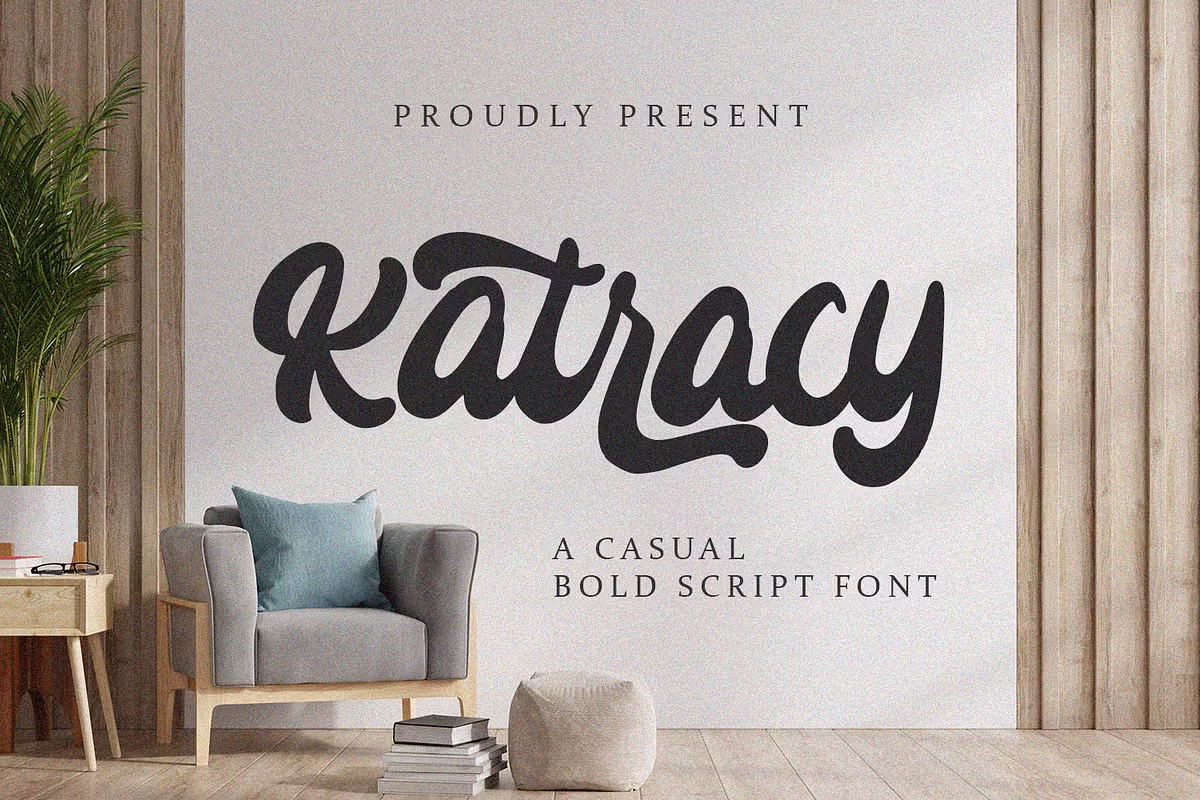
Katracy - Bold Script Font Free Download
Katracy Font Free Download is a bold script typeface that blends confident strokes with elegant curves, making it perfect for standout branding, logos, headlines, apparel, and modern signage. With its expressive letterforms and hand-lettered charm, Katracy delivers a powerful yet stylish presence across both digital and print projects.
The font features smooth connections, stylish swashes, and a full character set including uppercase, lowercase, numerals, and punctuation—ideal for creating attention-grabbing text with a handcrafted touch.
Whether you're designing a signature logo or a bold statement piece, Katracy Font Free Download gives you the perfect balance of personality and readability. Try it out in personal or mockup work, and be sure to purchase the appropriate license for any commercial use. Let your designs speak loud and stylish with this striking bold script font.